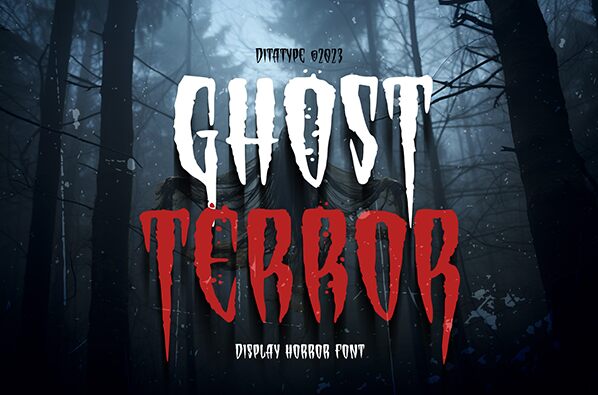
Ghost Terror, masterfully crafted by Ditatype, embodies the epitome of eerie design. This display font exudes a spine-chilling aura with its scary style and condensed structure. Each character stretches into elongated forms, dripping with terrifying textures that evoke ghostly apparitions and haunted realms.
Visually striking, Ghost Terror's sharp edges meet ghastly drips, making it the perfect choice for horror-themed projects and Halloween designs. Its distinctive appearance is bound to capture attention in movie posters, book covers, eerie advertisements, or any artwork seeking a haunting effect.
Embrace the macabre charm of Ghost Terror to infuse your designs with a dose of frightful elegance and unforgettable impact.